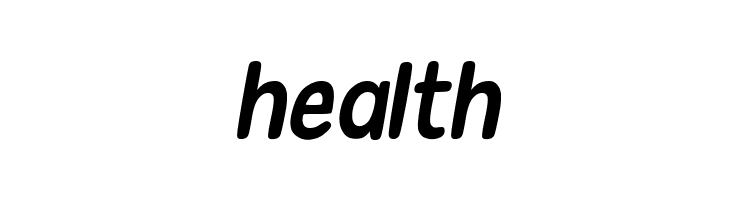
A casual, italic font with rounded, smooth characters.
A bold, rounded font with a casual and friendly style.
A playful, rounded font with a casual and friendly style.
A modern, light sans-serif font with clean lines and balanced spacing.
A sleek, modern sans-serif font with a light, italic style.
A modern, clean sans-serif font with geometric letterforms.
A modern, italicized sans-serif font with a sleek and professional appearance.
A bold, modern typeface with thick strokes and strong visual impact.
A bold, modern font with geometric lines and consistent stroke width.
Recent favorites include New Era Casual Italic, New Era Casual Bold, New Era Casual Regular, Tepeno Sans Light Regular and Tepeno Sans Light Italic. They balance clarity and personality, working well for tech brands, editorial layouts, and social visuals.